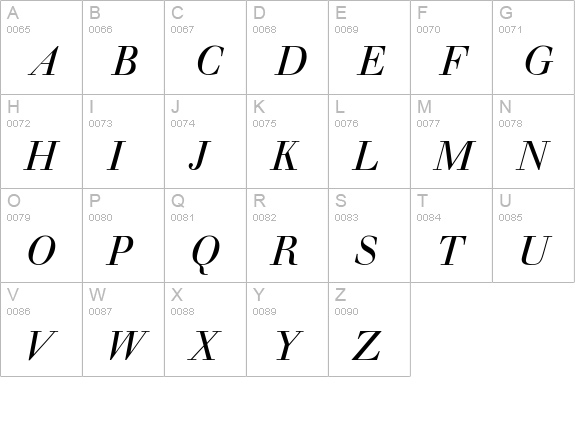
WalbaumDisplay-Italic Font Details
WalbaumDisplay-Italic is a distinctive, italic variant in the WalbaumDisplay typeface family \xE2\x80\x94 well suited to design and typography projects.
WalbaumDisplay-Italic font is a stunning and elegant typeface that exudes sophistication and style. With its slanted and graceful letterforms, this italic variant of the Walbaum Display font family adds a touch of flair and uniqueness to any design project. The subtle curves and delicate strokes of WalbaumDisplay-Italic create a sense of refinement and class, making it perfect for luxury branding, editorial design, and elegant invitations. What's even better is that WalbaumDisplay-Italic font is available for free download at FontsMarket.com. This means you can easily access and use this beautiful typeface in your creative projects without any cost. So, whether you're a designer looking to elevate your designs or a business owner wanting to add a touch of sophistication to your branding, WalbaumDisplay-Italic font is the perfect choice. Download it today and bring a touch of elegance to your projects.